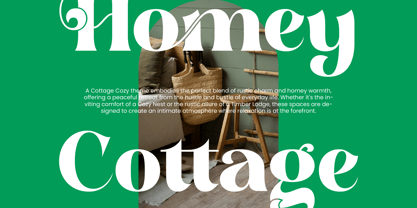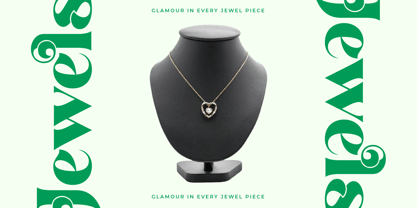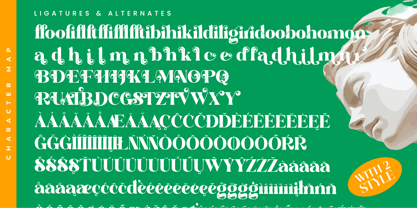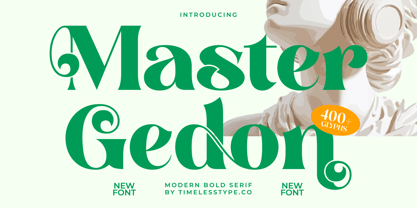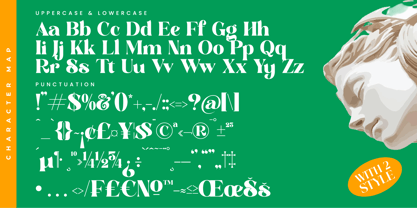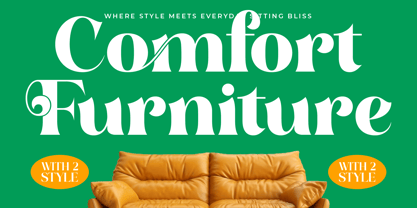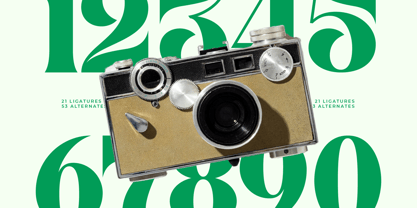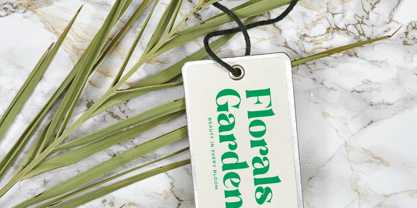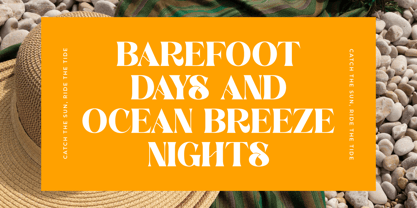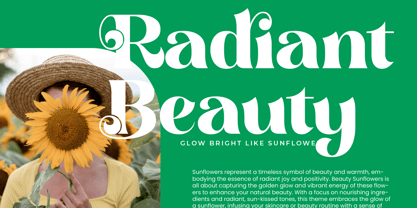
Master Gedon
The Master Gedon Font Family was designed by Heru Utama Putra and published by Timelesstype Studio. Master Gedon contains 2 styles.
Master Gedon - Modern Bold Serif Font , from Timelesstype, Suitable for any projects such as: logos, branding projects, homeware designs, product packaging, mugs, quotes, posters, shopping bags, t-shirts, book covers, name card, invitation cards, greeting cards, label, photography, watermark, special events, and all your other luxury and beautiful projects that need a Luxury Serif taste.